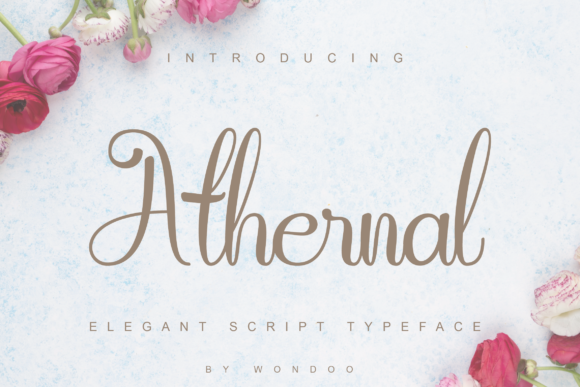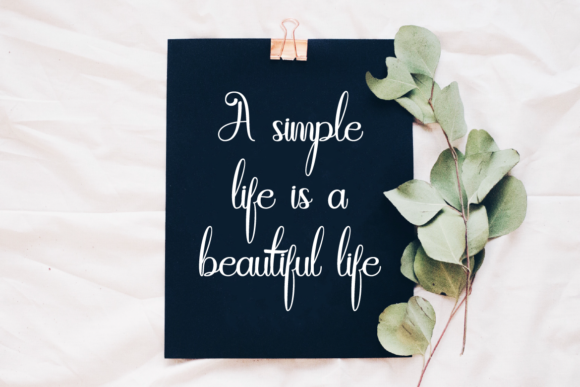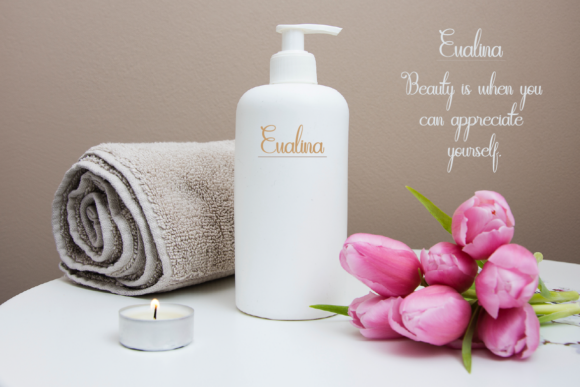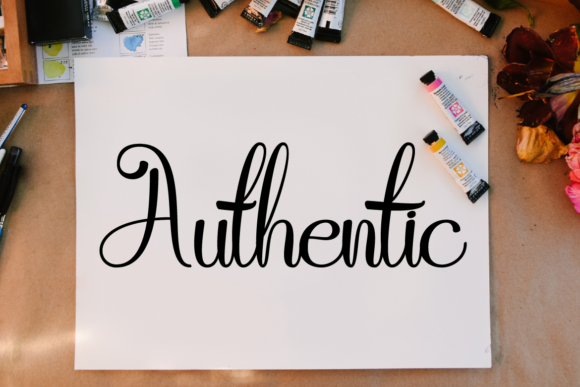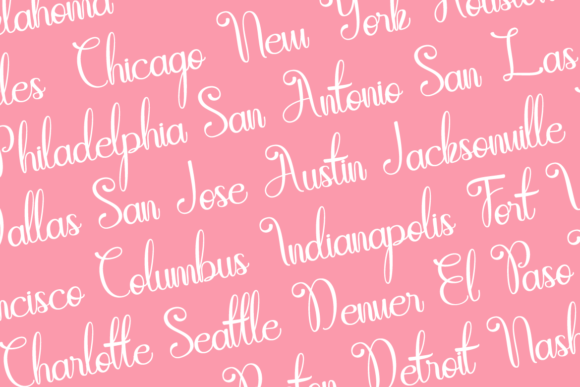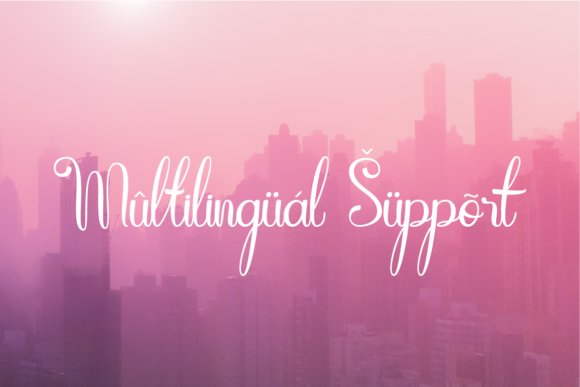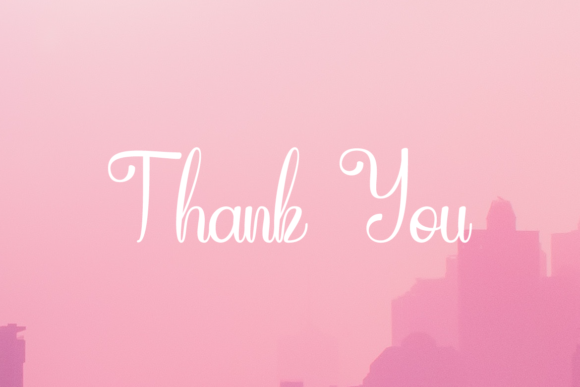
HomeScript FontsAthernal Font Script Fonts Athernal Font FacebookXPinterestWhatsApp Athernal Font Poster 2 Athernal Font Poster 3 Athernal Font Poster 4 Athernal Font Poster 5 Athernal Font Poster 6 Athernal Font Poster 7 About Athernal Font Athernal is a romantic and delicate script with a luxurious feel. It will add a unique feel to any design idea. DOWNLOAD ON CREATIVE FABRICAThis font is sold and delivered by Creative Fabrica. Font Canyon may earn a commission if you buy through this link. People also explored Misha Salma Font Agidãs Font Dragon Rider Font Alientze Font Stylish Font Heima Font Quiana Handlettering Fonts Collection Font Rose Skinner Font 287 0 TagsAthernal Font Previous articleSamarra FontNext articleBalnes Font LEAVE A REPLY Cancel reply Comment: Please enter your comment! Name:* Please enter your name here Email:* You have entered an incorrect email address! Please enter your email address here Website: Save my name, email, and website in this browser for the next time I comment. Personal Use Free 08 Underground Personal Use Free Read more about this font Kensin Personal Use Free Read more about this font Pretender Personal Use Free Read more about this font Thruster Personal Use Free Read more about this font BLOG Modern Sans-Serif Fonts That Brands Love in 2025 In 2025, modern sans-serif fonts remain a top choice for brands looking to project clarity, professionalism, and... Top 7 Google Fonts Alternatives for Faster and Privacy-Friendly Web Design (2025) Fonts That Capture the Spirit of New York City The 10 Best Handwriting Fonts to Add Personality to Your Designs